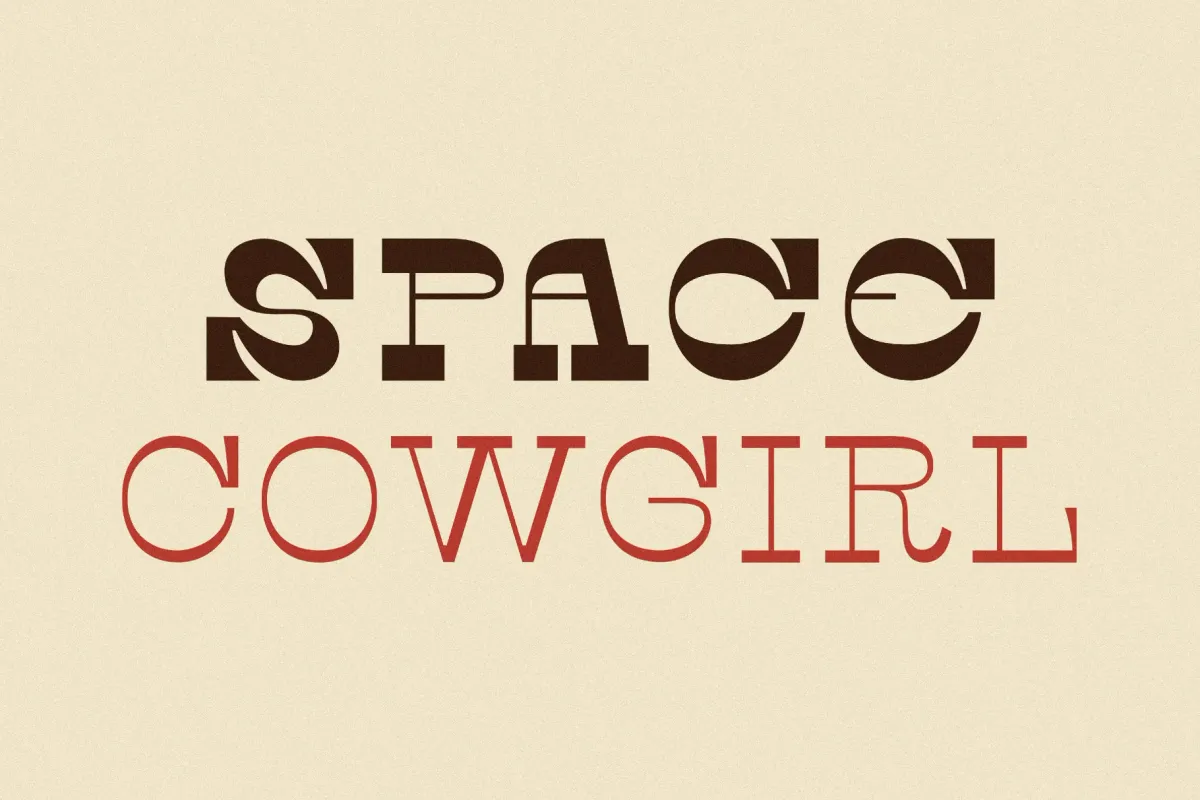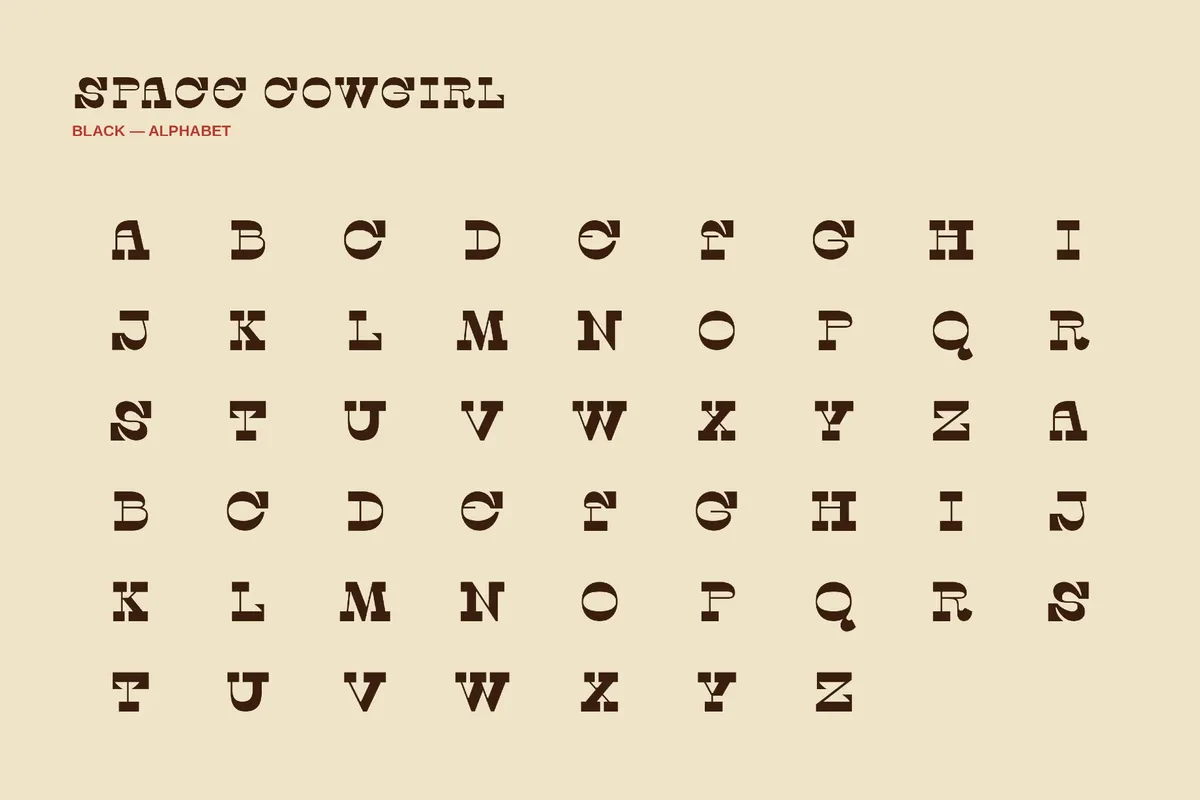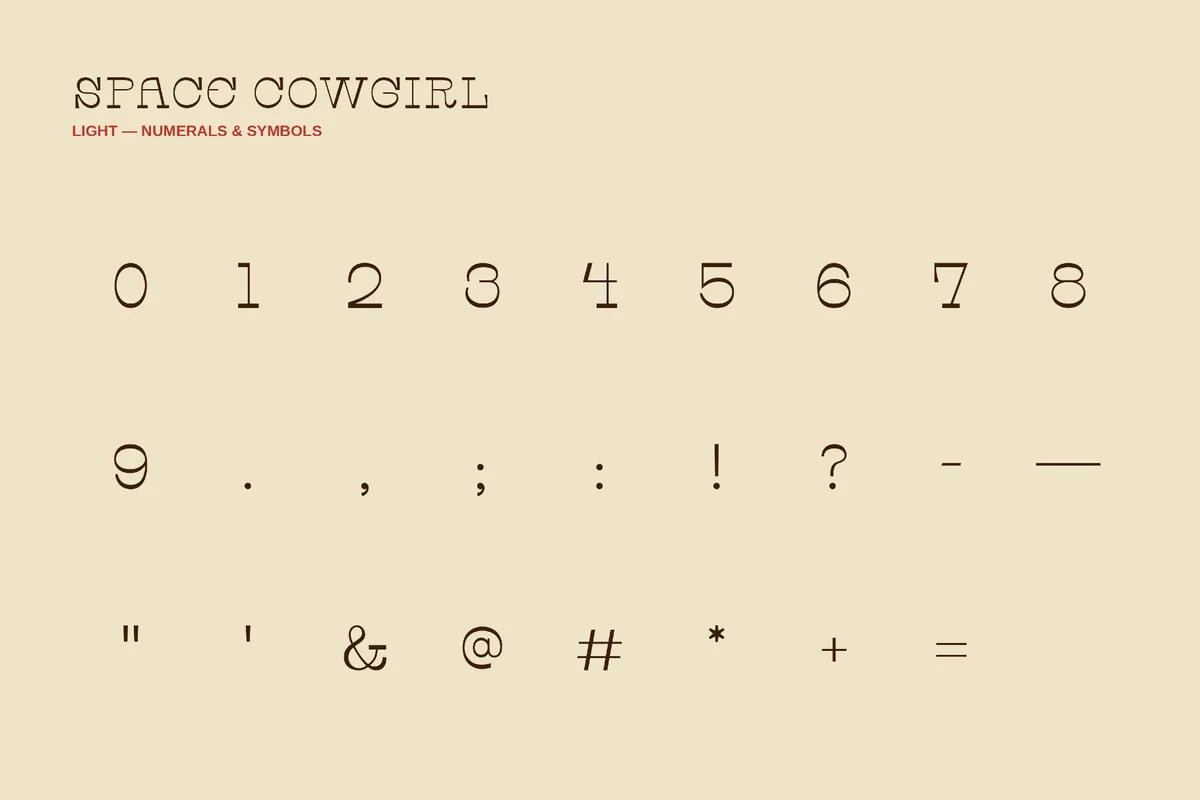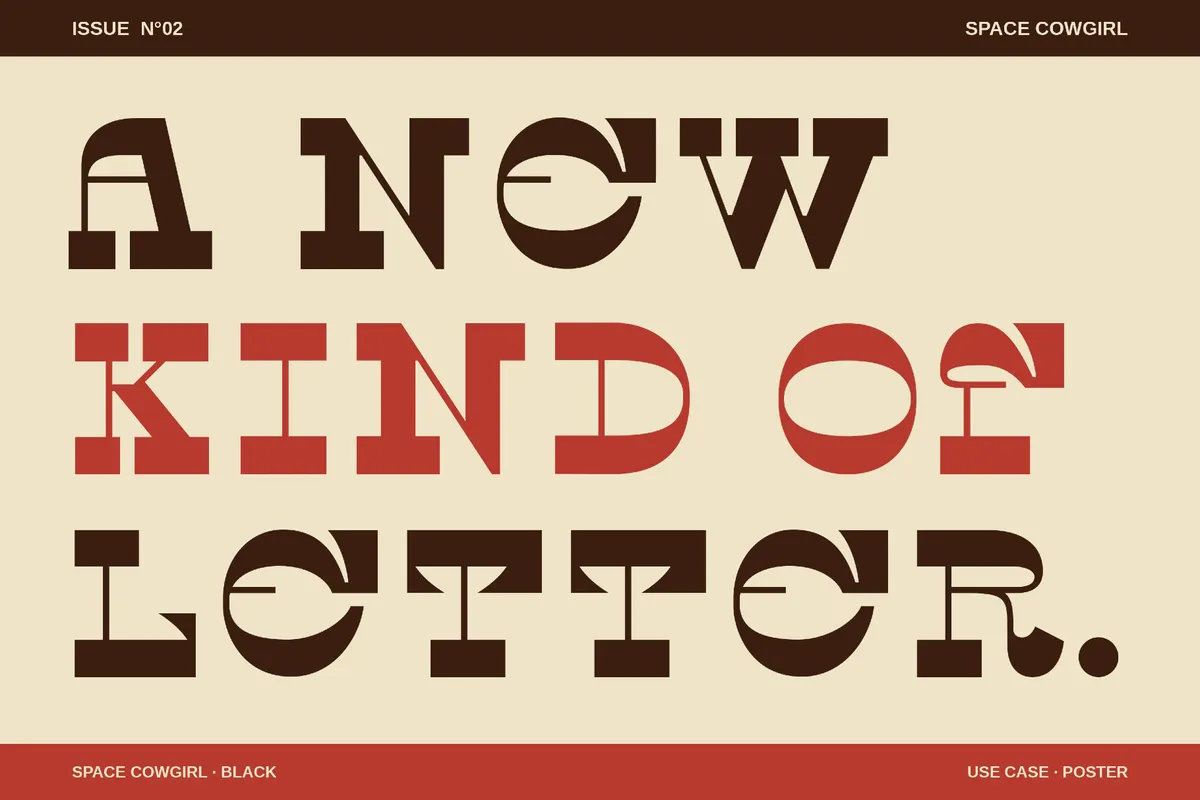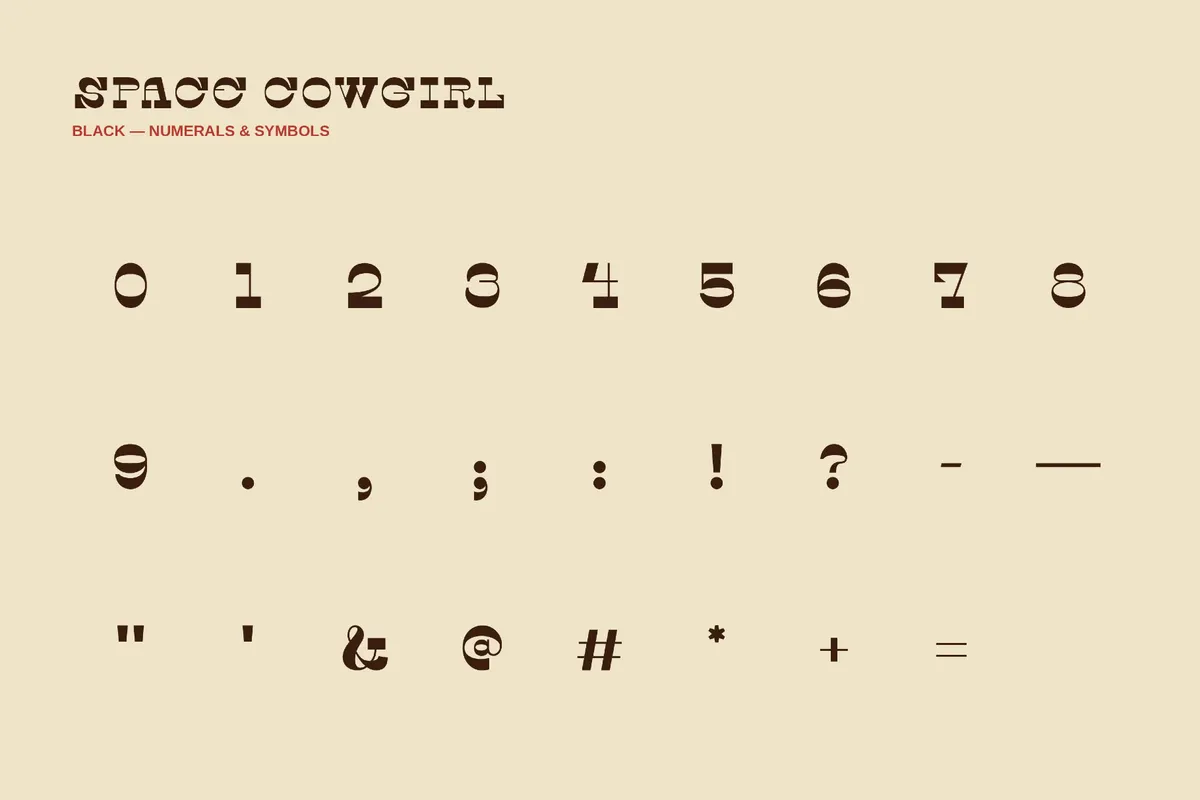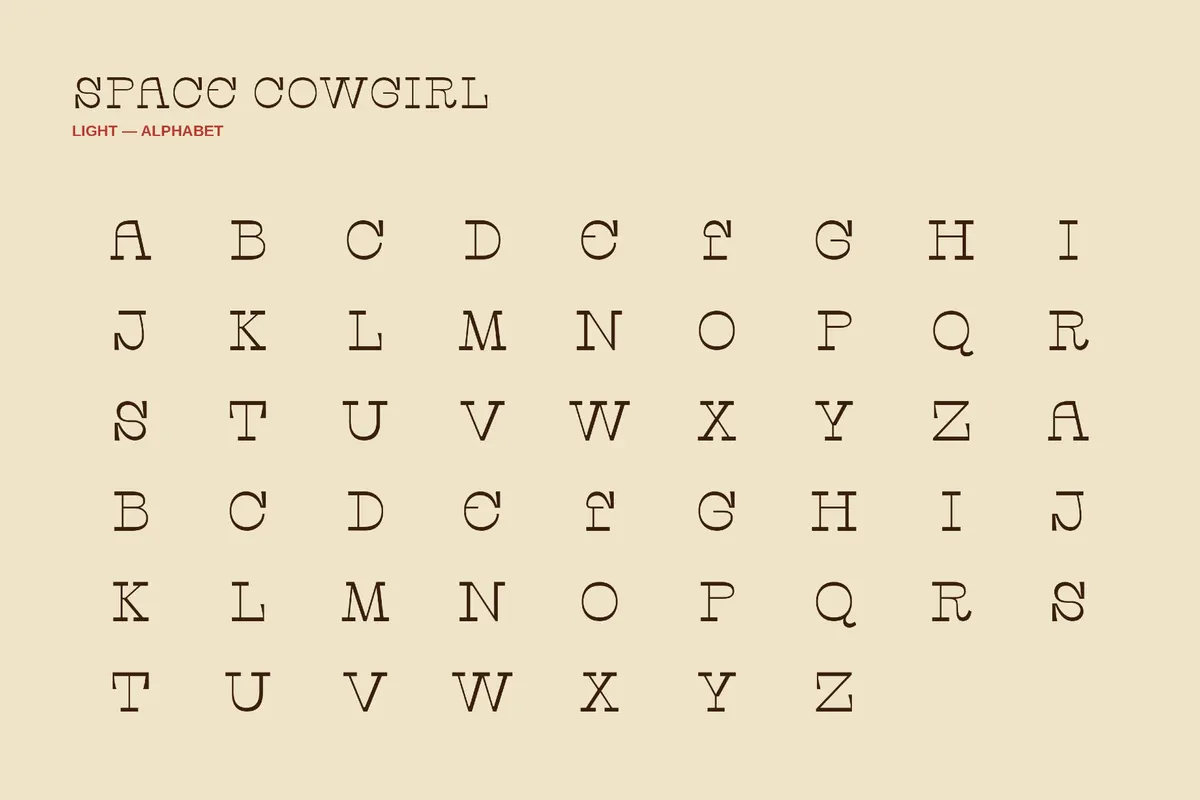
Space Cowgirl - Experimental Font Family
Space Cowgirl rides a playful Western sci-fi style with rounded spurs, starry attitude, and retro rodeo curves. Its lively shapes recall 1960s space-age posters, cosmic country album covers, kitschy roadside typography, and saloon graphics beamed in from another planet.
The typeface gives short headlines, names, and display phrases a cheerful, frontier personality, making it a perfect choice for festival branding, music covers, apparel prints, party invitations, boutique packaging, bar menus, merch graphics, event posters, sticker designs, and social media artwork.